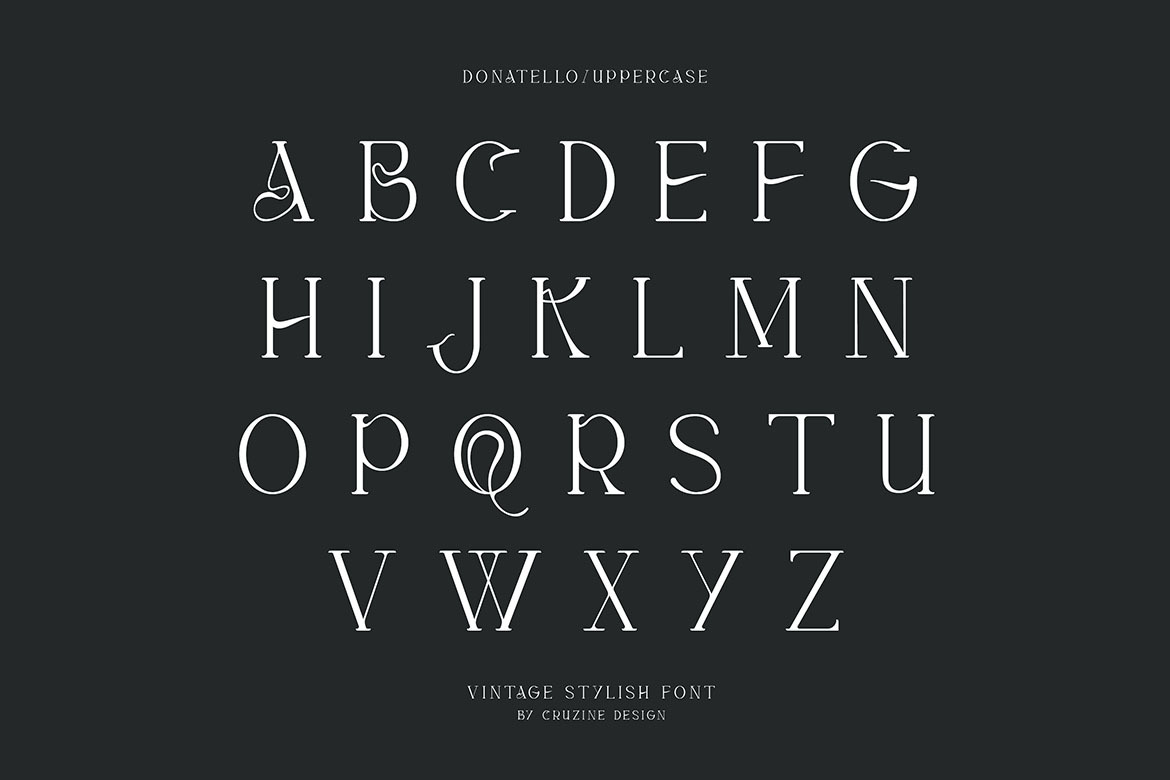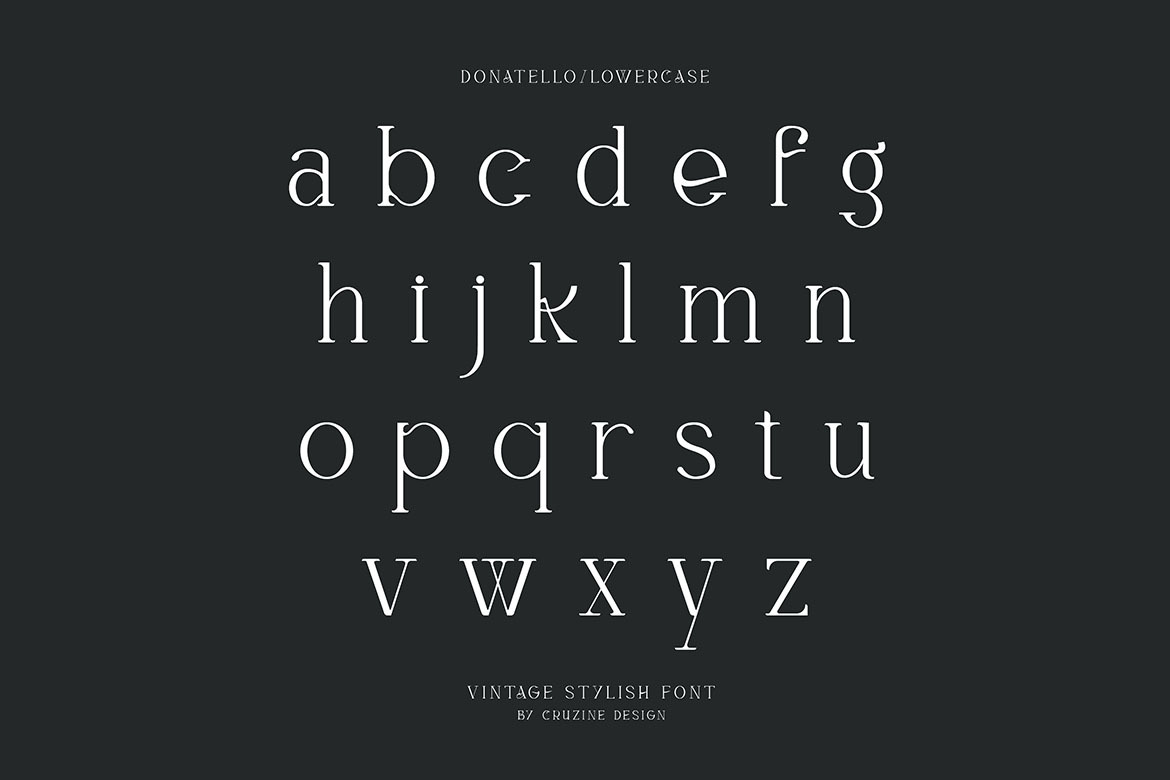
Donatello - Modern Serif Font
Trendy or modern style serif font for your fancy projects. Elegant and classic style on Donatello font will be great for any branding project. Enjoy :)
-Great for modern branding projects!